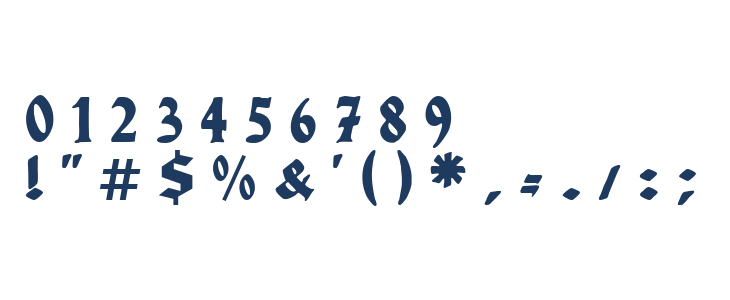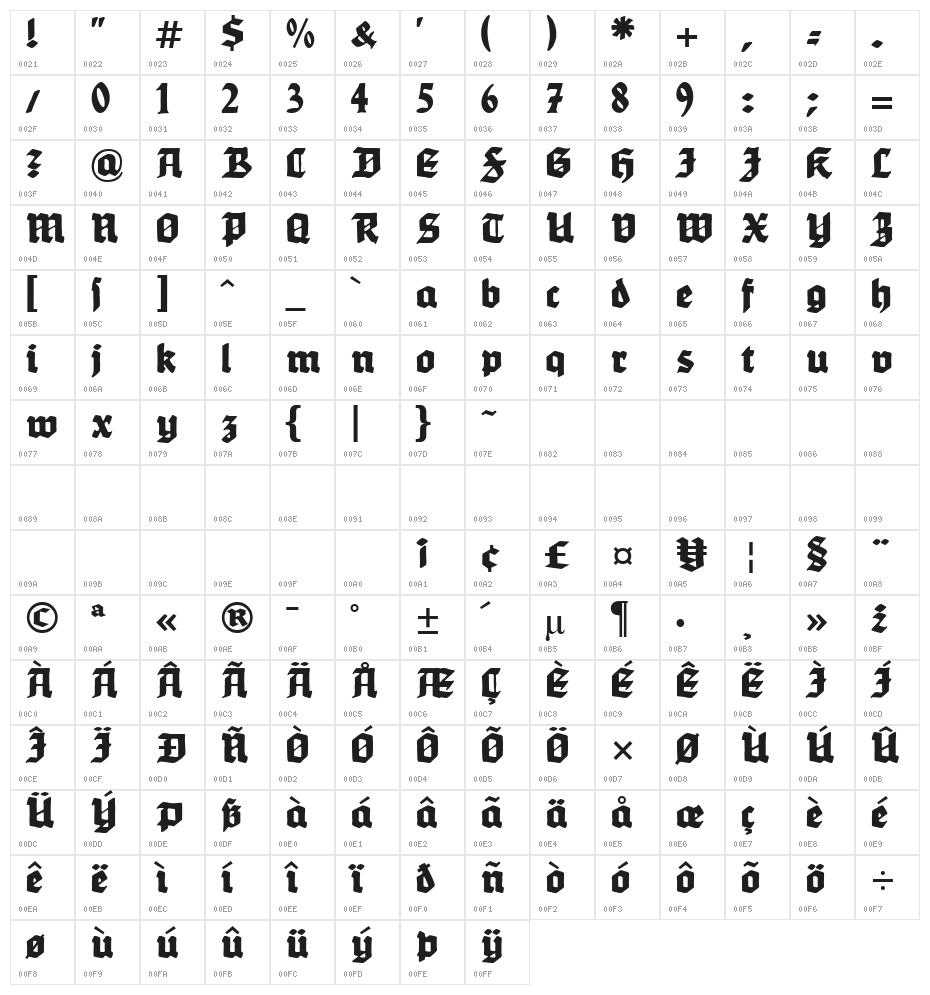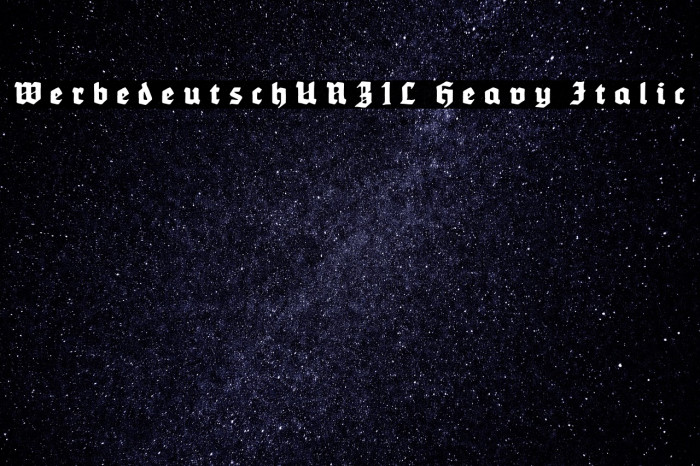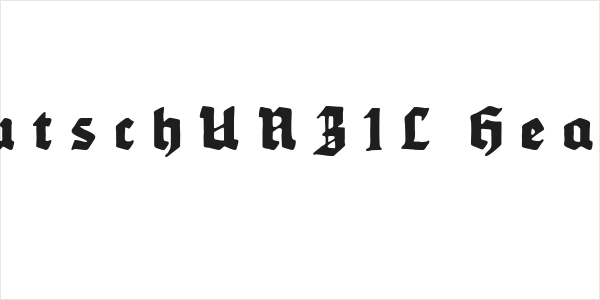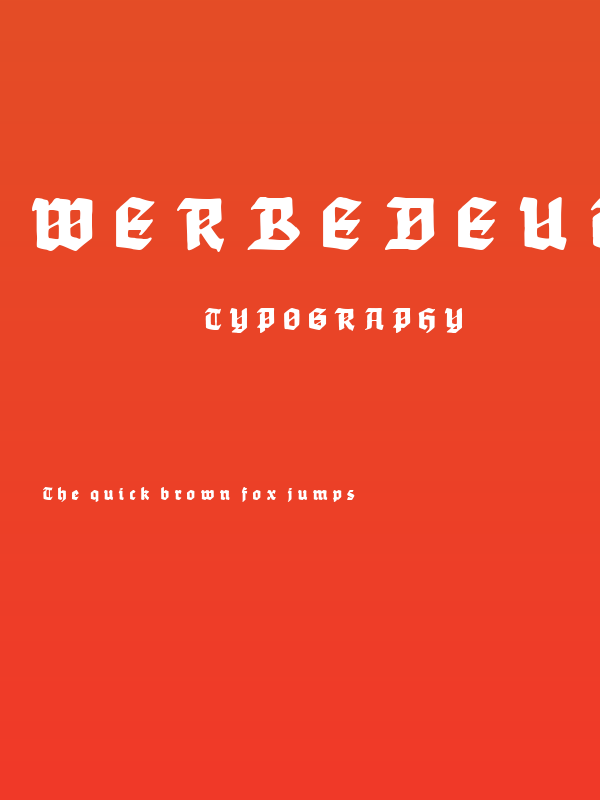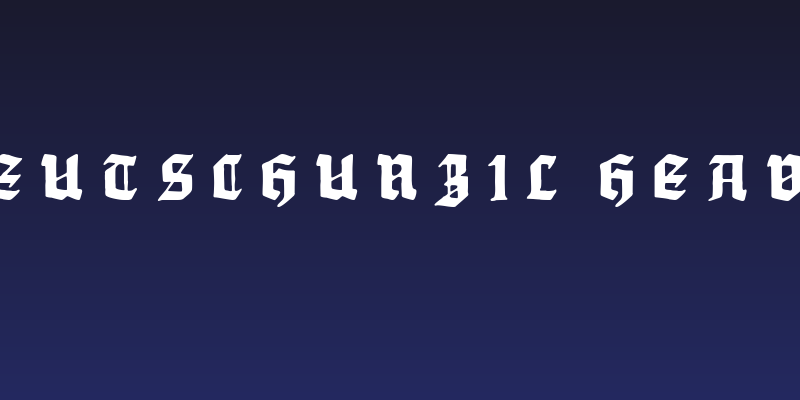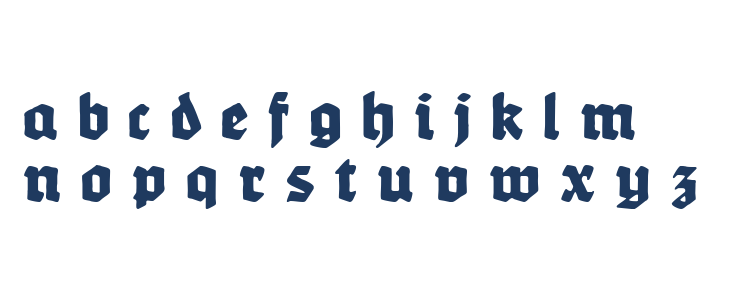
WerbedeutschUNZ1L Heavy Italic Font
WerbedeutschUNZ1L Heavy Italic Description
This font features a bold and heavy style with a distinct italic slant, reminiscent of traditional Blackletter typefaces. The characters are sharply defined with strong, angular strokes that convey a sense of authority and tradition. The uppercase letters are particularly striking, with intricate details that enhance their visual impact. The lowercase letters maintain the same boldness, ensuring consistency across the typeface. Numerals are equally robust, with a slight curvature that adds a touch of elegance. Special characters are designed to match the overall style, providing a cohesive look. This font is ideal for projects that require a historical or gothic aesthetic.
| Use Case | Headlines, Logos, Decorative text |
| Proposed Projects | Suitable for historical documents, gothic-themed designs, branding for traditional products, and decorative headings. |